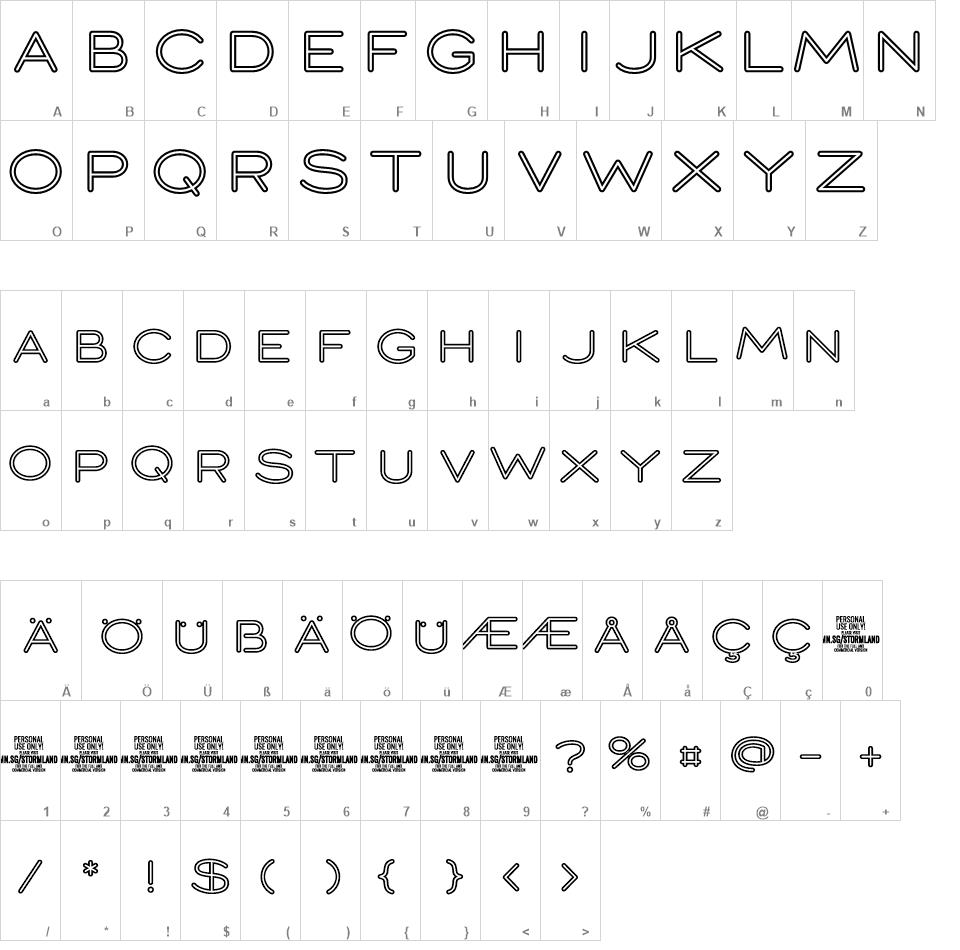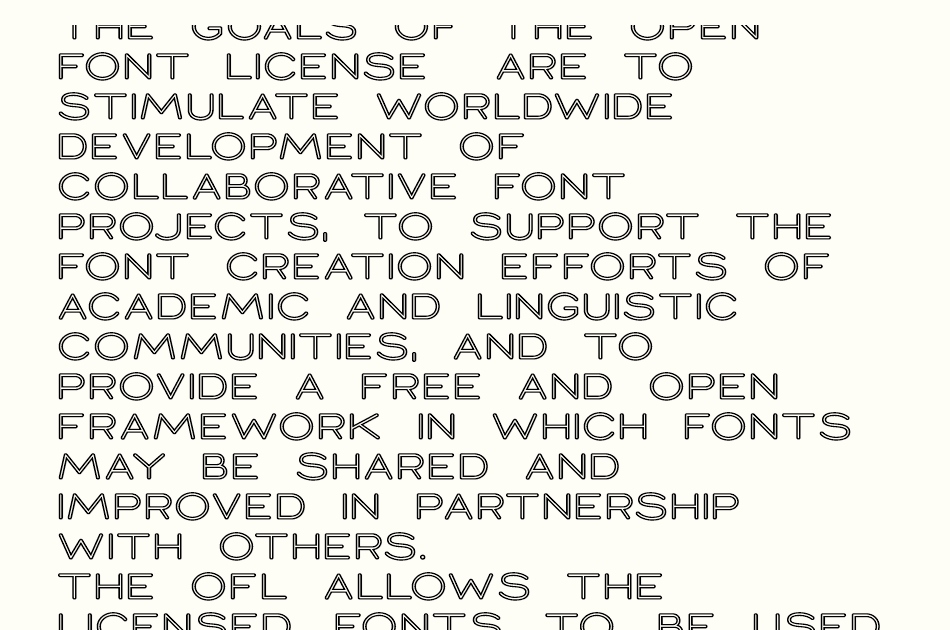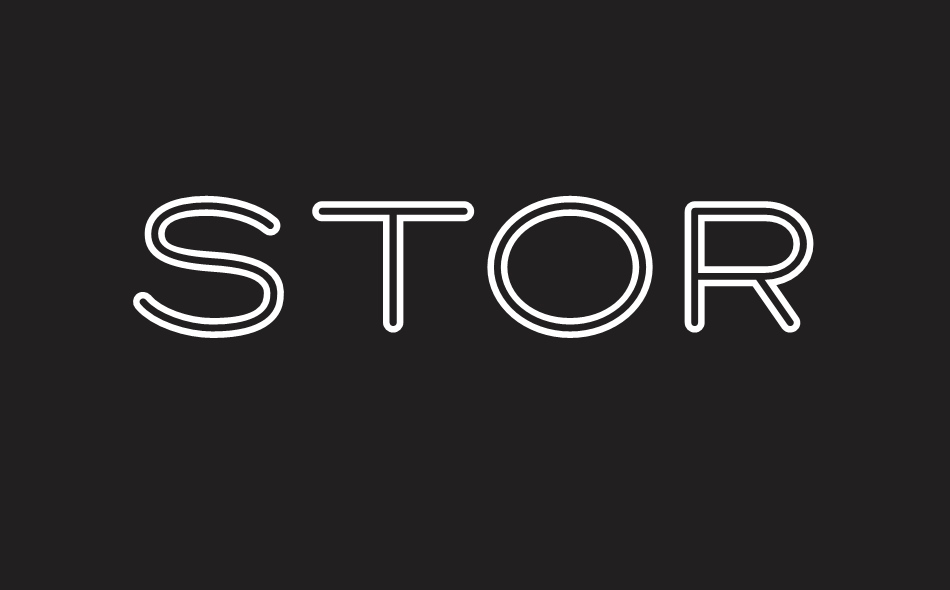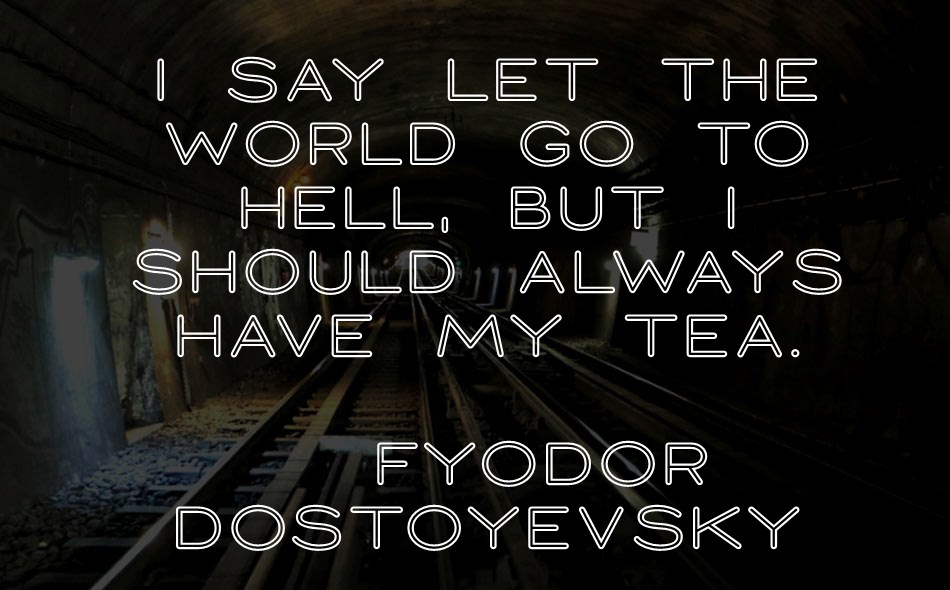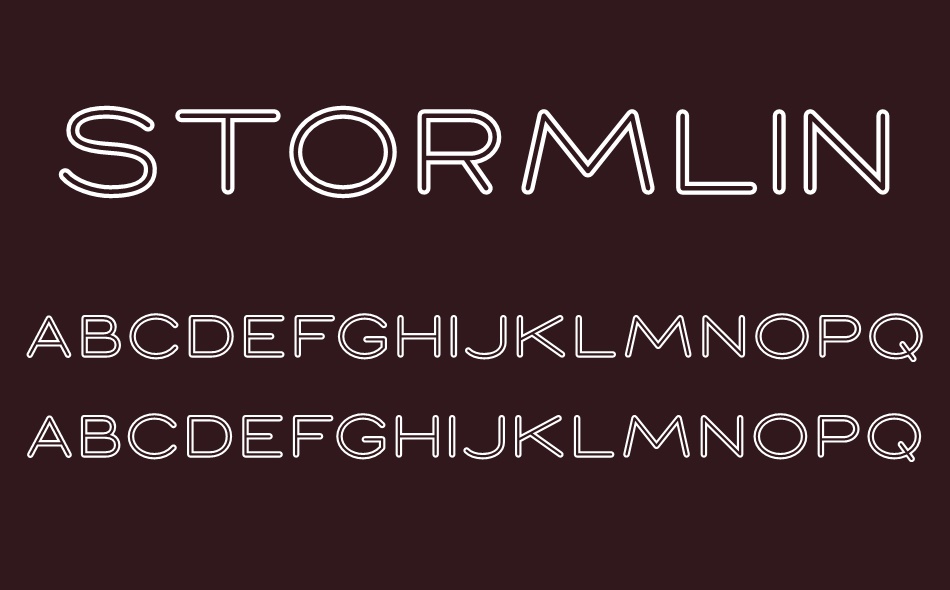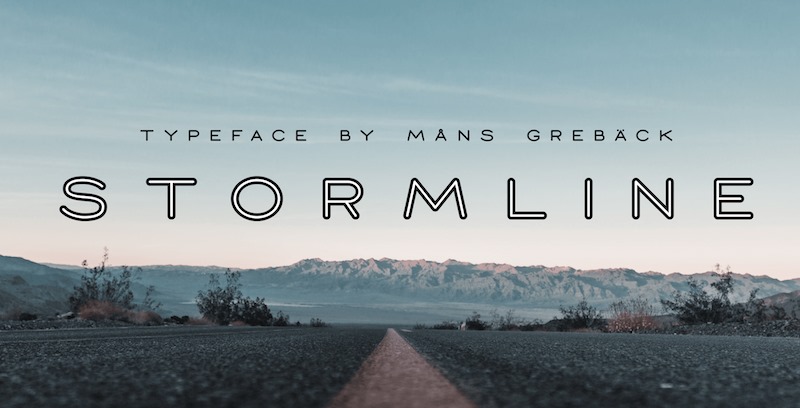
Stormline font
Stormline is a sleek inlined typeface, drawn and created by Mans Greback in 2021.
Its wide, carved out letterforms works with decorative minimalism, and retains the purity of a clean sans-serif typeface while being modern and original.
Stormline is provided in three distinct weights: Medium, Bold and Black.
The font is built with advanced OpenType functionality and has a guaranteed top-notch quality, containing stylistic and contextual alternates, ligatures and more features; all to give you full control and customizability. It has extensive lingual support, covering all Latin-based languages, from Nordic to South Africa, from America to South-East Asia. It contains all characters and symbols you'll ever need, including all punctuation and numbers.